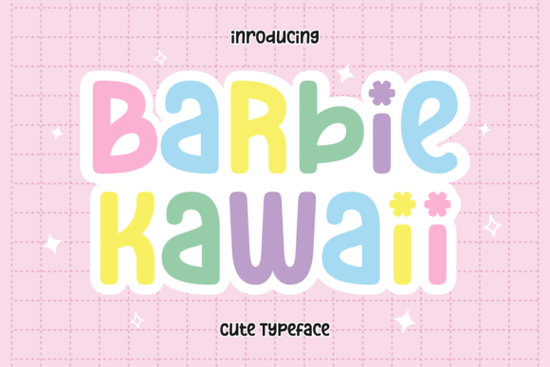
Barbie Kawaii Font is a delightful typeface that brings a sense of whimsy and charm to any design project. Its playful style makes it ideal for creating eye-catching visuals that stand out, especially when working with younger audiences or fun, lighthearted themes. Whether you're designing for children's books, social media posts, or creative stationery, this font adds a unique touch that’s both engaging and easy to read.
If you’re looking for a font that balances creativity with clarity, Barbie Kawaii is a great choice. It works well in a variety of formats, from digital graphics to printed materials. For designers and crafters, this font can be a valuable addition to your toolkit, helping you create designs that feel fresh and modern without sacrificing readability.
When choosing a font for projects like greeting cards, posters, or branding materials, it's important to find one that matches the tone of your work. Barbie Kawaii fits perfectly into categories like display fonts and craft fonts, making it a versatile option for anyone who wants to add a touch of cuteness to their designs.
What Makes Barbie Kawaii Font Unique?
One of the standout features of Barbie Kawaii Font is its ability to convey a sense of fun without being too distracting. The rounded edges and soft curves give it a friendly appearance, while the overall structure remains clean and professional. This balance makes it suitable for both casual and more formal projects.
Another advantage is its flexibility. You can use it for headlines, quotes, or even as a main body text in certain contexts. Its legibility at different sizes ensures that it remains effective whether you're designing for a large poster or a small business card. This adaptability is especially useful for print-on-demand sellers and small businesses looking for a reliable, go-to font.
Best Uses for Barbie Kawaii Font
Barbie Kawaii Font shines in projects that benefit from a cheerful and approachable look. Here are some common applications:
- Children’s books and educational materials – Its playful style helps capture the attention of young readers.
- Greeting cards and invitations – Adds a personal and fun touch to special occasions.
- Social media graphics – Perfect for creating eye-catching posts or story overlays.
- Branding and packaging – Helps create a memorable identity for products aimed at a youthful audience.
For those working in the stylish font or bold display font categories, Barbie Kawaii offers a softer alternative that still delivers strong visual impact.
Whether you're a designer, crafter, or small business owner, finding the right font can make a big difference in how your work is perceived. Barbie Kawaii Font is a great example of how a well-designed typeface can enhance your projects while staying true to its purpose.
Consider experimenting with this font in your next design to see how it can bring a new level of charm and personality to your work. With its friendly look and practical use, it’s a valuable resource for anyone looking to add a little bit of fun to their creative process.